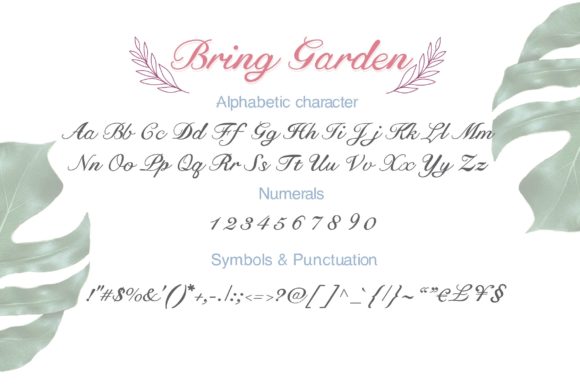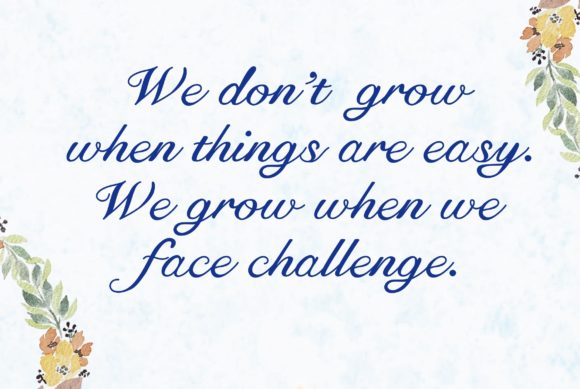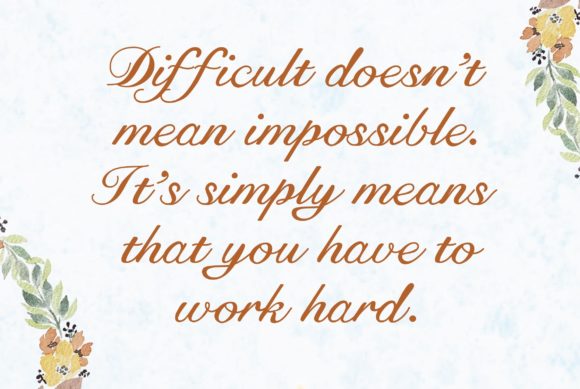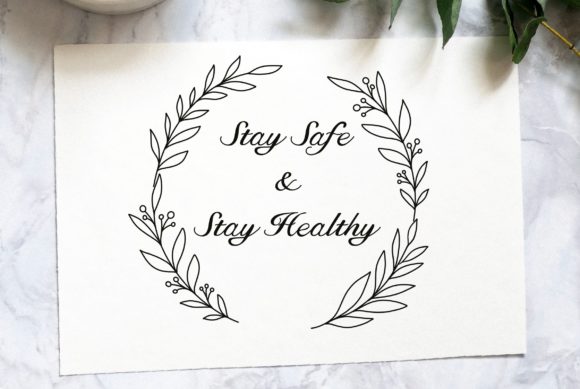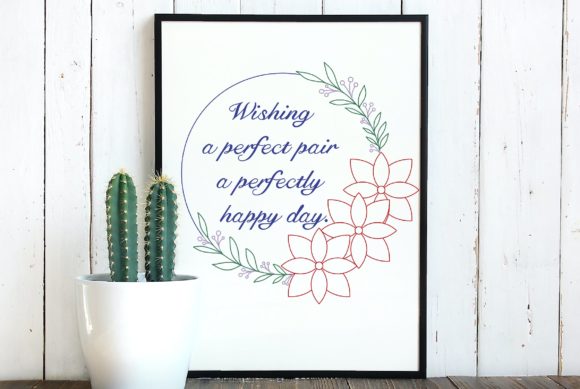
Bring Garden Font: Elevate Your Designs with a Delicate Touch
In the world of typography, a well-crafted font can make all the difference in elevating your designs from ordinary to extraordinary. If you’re a designer, crafter, or DIY enthusiast looking for a unique and elegant touch, look no further than the Bring Garden font. This delicate, well-balanced handwritten font is expertly designed to make your creations look out of this world.
The Characteristics of Bring Garden Font
Bring Garden is a refined font that boasts a range of characteristics that make it perfect for a variety of design projects. Some of its key features include:
- Delicate and Elegant: Bring Garden’s handwritten style is characterized by its delicate and elegant lines, making it perfect for designs that require a touch of sophistication.
- Well-Balanced: The font’s well-balanced design ensures that it looks great on a variety of backgrounds and paired with different fonts.
- Versatile: Bring Garden is a versatile font that can be used on a range of projects, from wedding invitations and stationery to branding and packaging.
Why Choose Bring Garden Font?
So, why should you choose Bring Garden font for your next design project? Here are just a few reasons:
- Unique and Eye-Catching: Bring Garden’s unique and eye-catching design ensures that your creations will stand out from the crowd.
- Easy to Read: Despite its delicate nature, Bring Garden is easy to read, making it perfect for designs that require a lot of text.
- Highly Versatile: The font’s versatility means that it can be used on a range of projects, from digital designs to print materials.
How to Use Bring Garden Font in Your Designs
Using Bring Garden font in your designs is easy. Here are a few tips to get you started:
- Pair it with Bold Fonts: Pair Bring Garden with bold fonts for a striking contrast that adds visual interest to your designs.
- Use it for Headings: Use Bring Garden as a heading font to add a touch of elegance to your designs.
Bring Garden font is perfect for designers and crafters who are looking for a unique and elegant touch for their projects. Whether you’re creating:
- Wedding Invitations: Add a touch of sophistication to your wedding invitations with Bring Garden font.
- Stationery: Use Bring Garden to create beautiful stationery that reflects your personal style.
- Branding and Packaging: Use Bring Garden to elevate your branding and packaging designs and make them stand out.
In conclusion, Bring Garden font is a delicate, well-balanced handwritten font that is expertly designed to make your creations look out of this world. With its unique and eye-catching design, ease of use, and versatility, it’s perfect for designers and crafters who are looking for a touch of elegance and sophistication. So why not give Bring Garden font a try and see how it can elevate your designs?
- Delicate and elegant handwritten font
- Well-balanced design
- Perfect for wedding invitations, stationery, branding, and packaging
Take Your Designs to the Next Level with Bring Garden Font